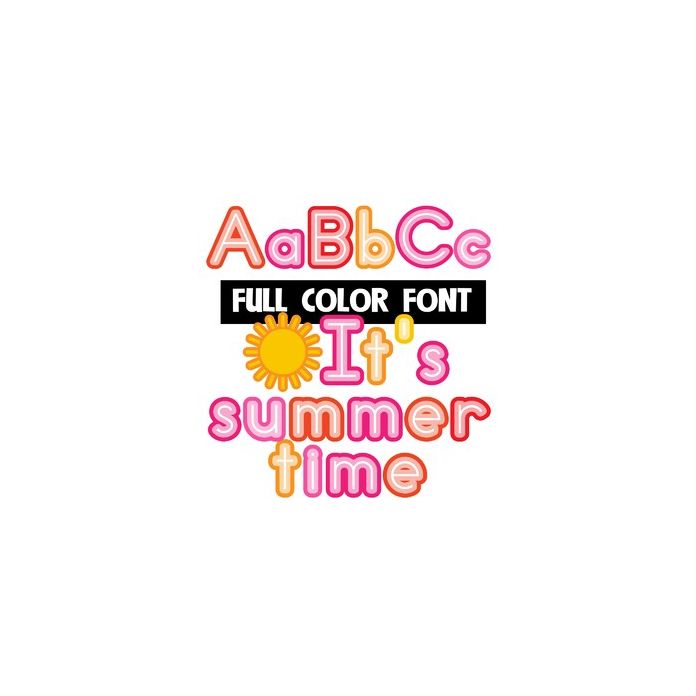
This full-color font features ssummer colors and has a secondary upper and lowercase you can access through Silhouette's glyph map. The capital O is a sunshine but you can access a regular O with glyph map.